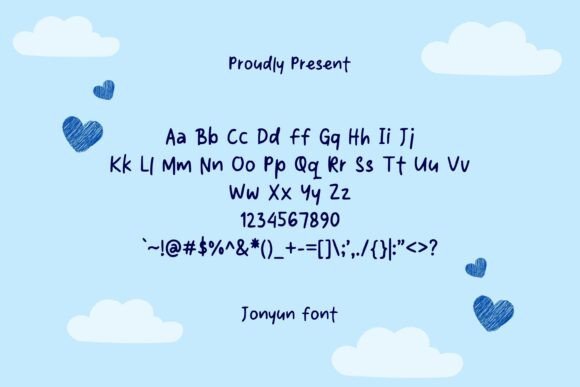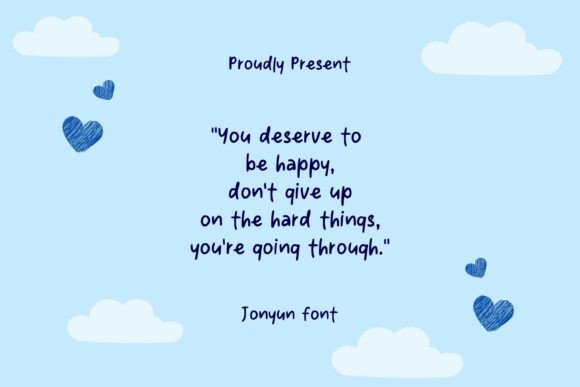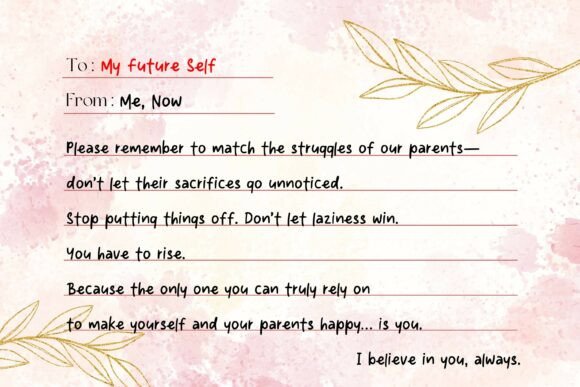
Introduction to Jonyun Font
Have you ever found yourself scribbling down inspirational quotes or heartfelt letters to loved ones, only to realize that the handwritten font you used has a special something that makes it truly unforgettable? For designers and creatives, finding the perfect font can be a game-changer, elevating a simple message into a work of art.
That’s where the Jonyun Font comes in – a casual handwritten font that exudes a soft, personal touch. Its playful strokes and slightly uneven lines give it a natural, heartfelt feel that’s perfect for creative projects, from journaling and quotes to personal letters and more.
With its high-quality design and transparent background, the Jonyun Font is a valuable resource for designers looking to add a touch of sincerity and charm to their work. And the best part? It’s available for free download, making it an accessible design resource for creatives of all levels.
Key Features of Jonyun Font
- High-quality, elegant design perfect for creative projects and modern designs.
- Unique, modern design with a transparent background, ideal for creating visually appealing graphics and typography.
- Perfect for use in logo designs, branding materials, and other design elements where a clean and sophisticated look is required.
- Designed as a versatile design resource, Jonyun Font can be used in a variety of creative projects, from business cards to website headers.
Honest Review: Jonyun Font
As a designer, I’m always on the lookout for new and exciting design resources to enhance my creative projects. Recently, I stumbled upon the Jonyun Font, and I’m excited to share my honest review with you.
What works well: ✨ The Jonyun Font has a clean and modern design that’s perfect for digital interfaces, branding materials, and other high-quality projects. The font is also available for free download, making it a great resource for designers on a budget. Additionally, the transparent background feature is a nice touch, allowing for seamless integration into various design elements.
What doesn’t work so well: ⚠️ While the Jonyun Font is a solid choice for many projects, I did notice that it’s not suitable for projects that require a more rustic or vintage aesthetic. The font’s modern design may clash with these types of projects, so be sure to keep that in mind when choosing a font.
Overall, I’m impressed with the Jonyun Font’s high quality and versatility. It’s a great addition to any designer’s toolkit, and I highly recommend it for creative projects that require a modern and sleek look.
- Modern and clean design
- Transparent background feature
- Perfect for digital interfaces, branding materials, and other high-quality projects
Jonyun Font is a high-quality design resource ideal for creative projects that require a unique touch. This free download offers a transparent background, making it perfect for overlaying on images or videos.
Tips for Getting the Most Out of Jonyun Font
1. Experiment with different font sizes and colors to create a visually appealing design.
2. Use Jonyun Font in conjunction with other design elements, such as images and graphics, to add depth and interest to your project.
Common Use Cases for Jonyun Font
Jonyun Font is ideal for a variety of creative projects, including:
- Infographics and data visualization